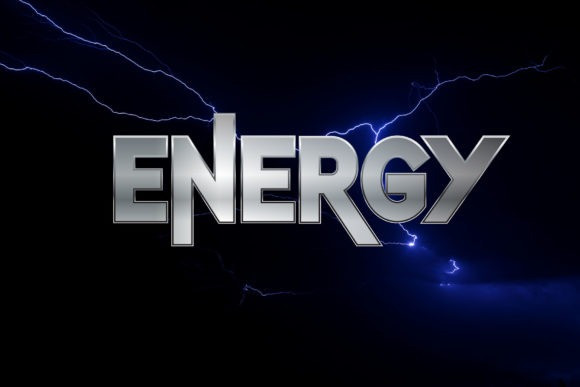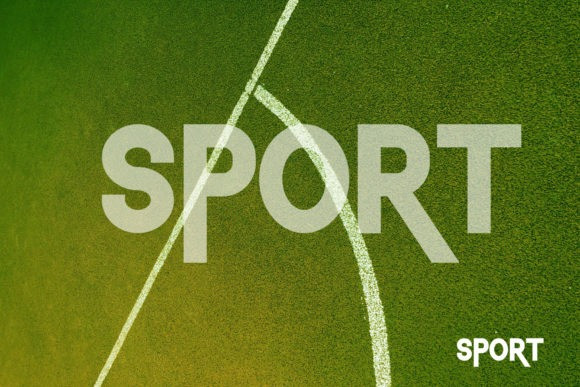
Sport Font
Sport Font is a cool, modern, and techno-looking display font. It is perfect for each of your web-related designs, space themes, or anything that requires a strong character.